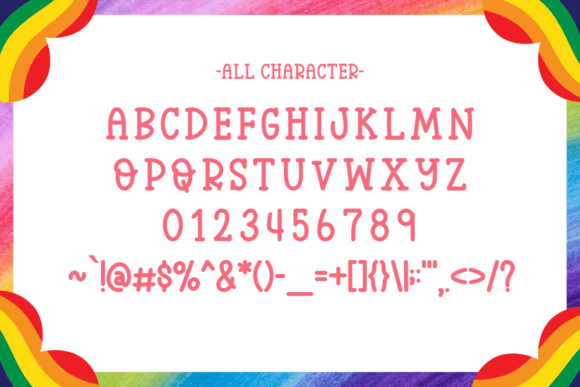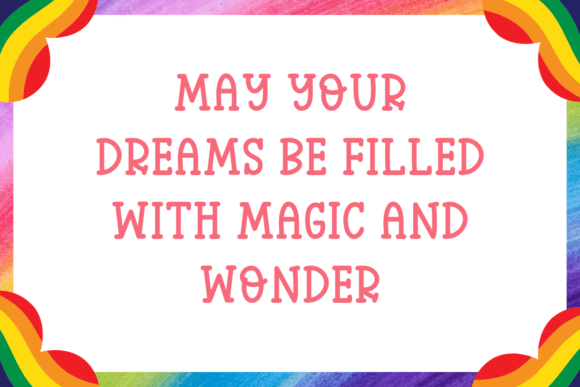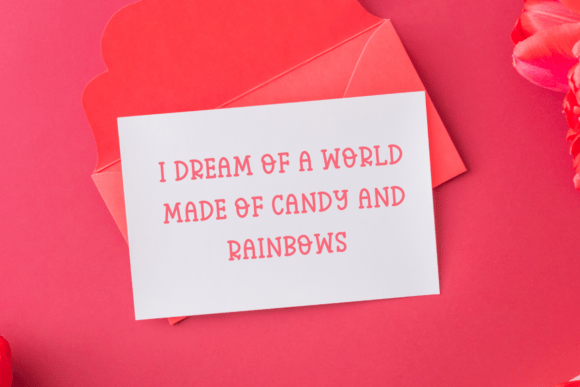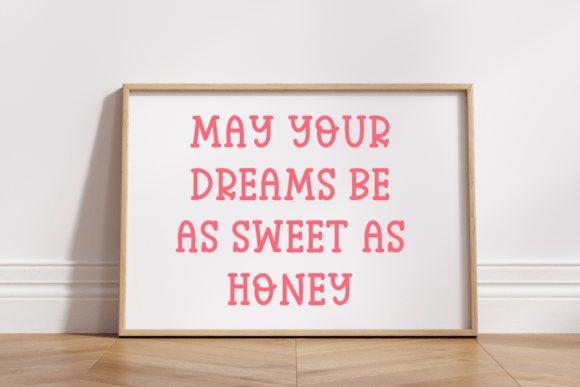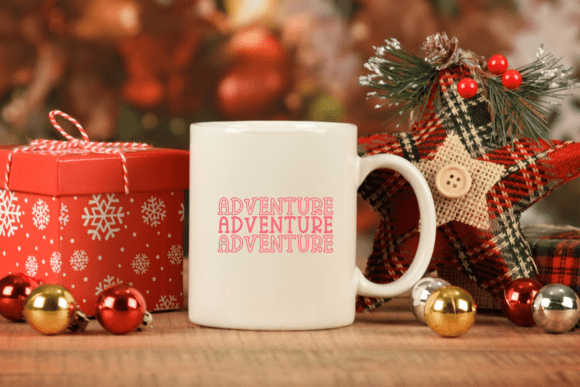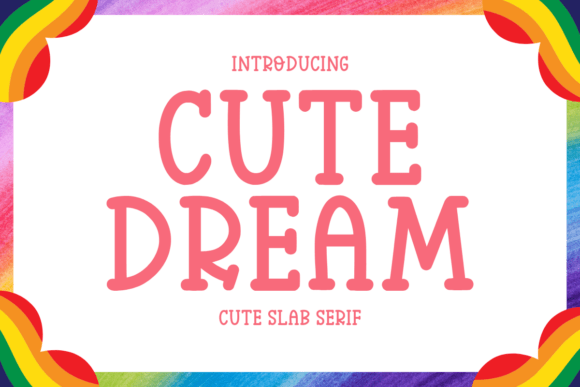
Cute Dream Font: The Perfect Addition to Your Creative Projects
Are you a crafter, designer, or maker looking for a playful and friendly font to elevate your creative projects? Look no further than Cute Dream Font! This adorable font is perfect for a variety of applications, including crafts, planners, KDP, stickers, greeting cards, and more. In this article, we’ll explore the features and benefits of Cute Dream Font and how it can take your DIY projects to the next level.
What is Cute Dream Font?
Cute Dream Font is a digital font designed with a playful and friendly style. Its cute and whimsical design makes it perfect for creative projects that require a touch of personality. The font is highly versatile and can be used for a wide range of applications, from crafting and designing to sublimation and DIY projects.
Features of Cute Dream Font
- Playful and Friendly Style: Cute Dream Font has a unique and adorable design that adds a touch of personality to any project.
- Highly Versatile: The font can be used for a variety of applications, including crafts, planners, KDP, stickers, greeting cards, and more.
- Perfect for Cricut and Sublimation: Cute Dream Font works great with Cricut and sublimation projects, making it a great addition to your design toolkit.
- Ideal for DIY Projects: The font is perfect for crafters, designers, and makers who want to add a personal touch to their projects.
Benefits of Using Cute Dream Font
Using Cute Dream Font can bring numerous benefits to your creative projects. Here are a few:
- Adds Personality to Your Projects: Cute Dream Font adds a unique and playful touch to your projects, making them stand out from the crowd.
- Enhances Visual Appeal: The font’s cute and friendly design enhances the visual appeal of your projects, making them more engaging and attractive.
- Increases Creativity: Cute Dream Font inspires creativity and imagination, allowing you to experiment with new ideas and designs.
Cute Dream Font in Action
Cute Dream Font can be used in a variety of creative projects. Here are a few examples:
- Crafts: Use Cute Dream Font to add a personal touch to your crafts, such as scrapbooking, card making, and DIY gifts.
- Planners and Journals: Add Cute Dream Font to your planners and journals to make them more visually appealing and fun to use.
- KDP and Stickers: Use Cute Dream Font to create eye-catching KDP and stickers that stand out from the crowd.
- Greeting Cards: Add a personal touch to your greeting cards with Cute Dream Font, making them more special and meaningful.
Cute Dream Font is a playful and friendly font that’s perfect for crafters, designers, and makers. With its cute and whimsical design, it’s ideal for a variety of creative projects, including crafts, planners, KDP, stickers, greeting cards, and more. Whether you’re a seasoned designer or a DIY beginner, Cute Dream Font is a great addition to your toolkit. So why wait? Download Cute Dream Font today and start creating unique and visually appealing projects that showcase your personality and style!